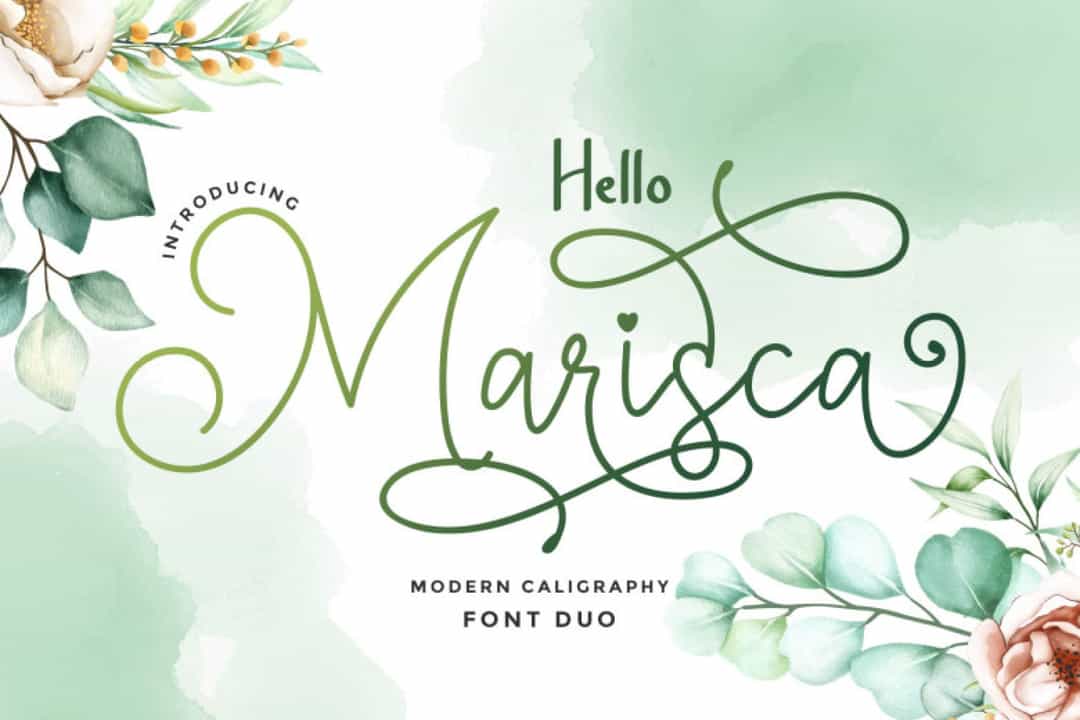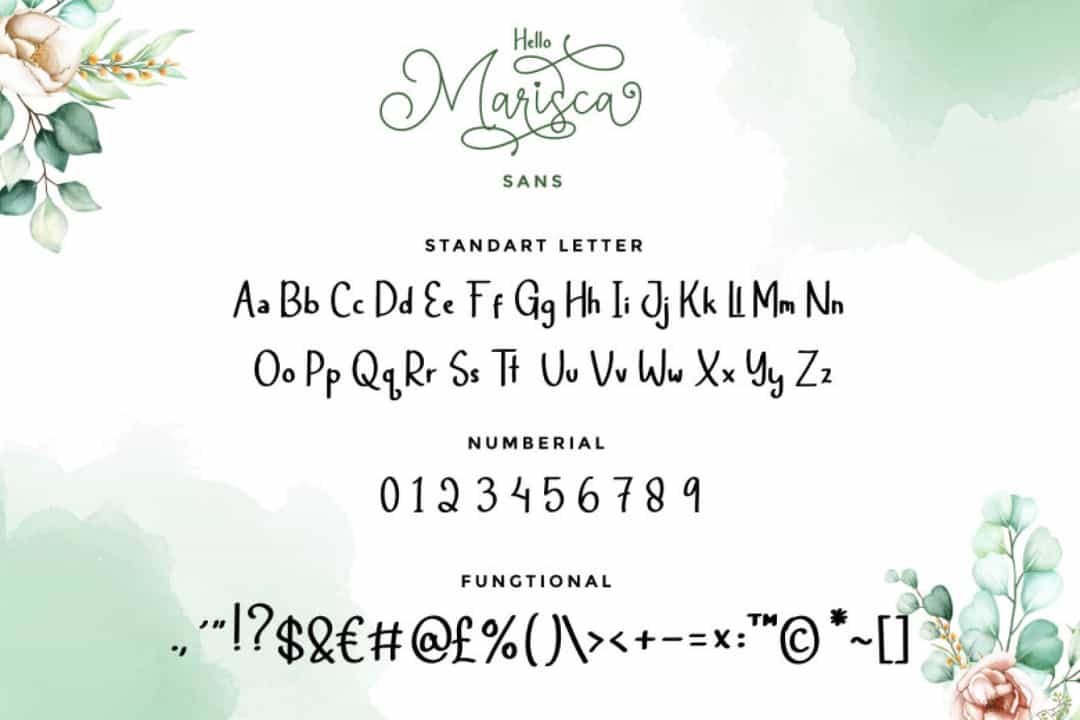
Hello Ladies and Gentlemen! Hello Marisca is here, and this is yet another beautiful and classy set of fonts that we have for you! Hello Marisca is an elegant font suitable for business use, it is modern, female and pretty – and best of all, easy to use! The font alone is capable of producing documents that look very professional with the click of a button.